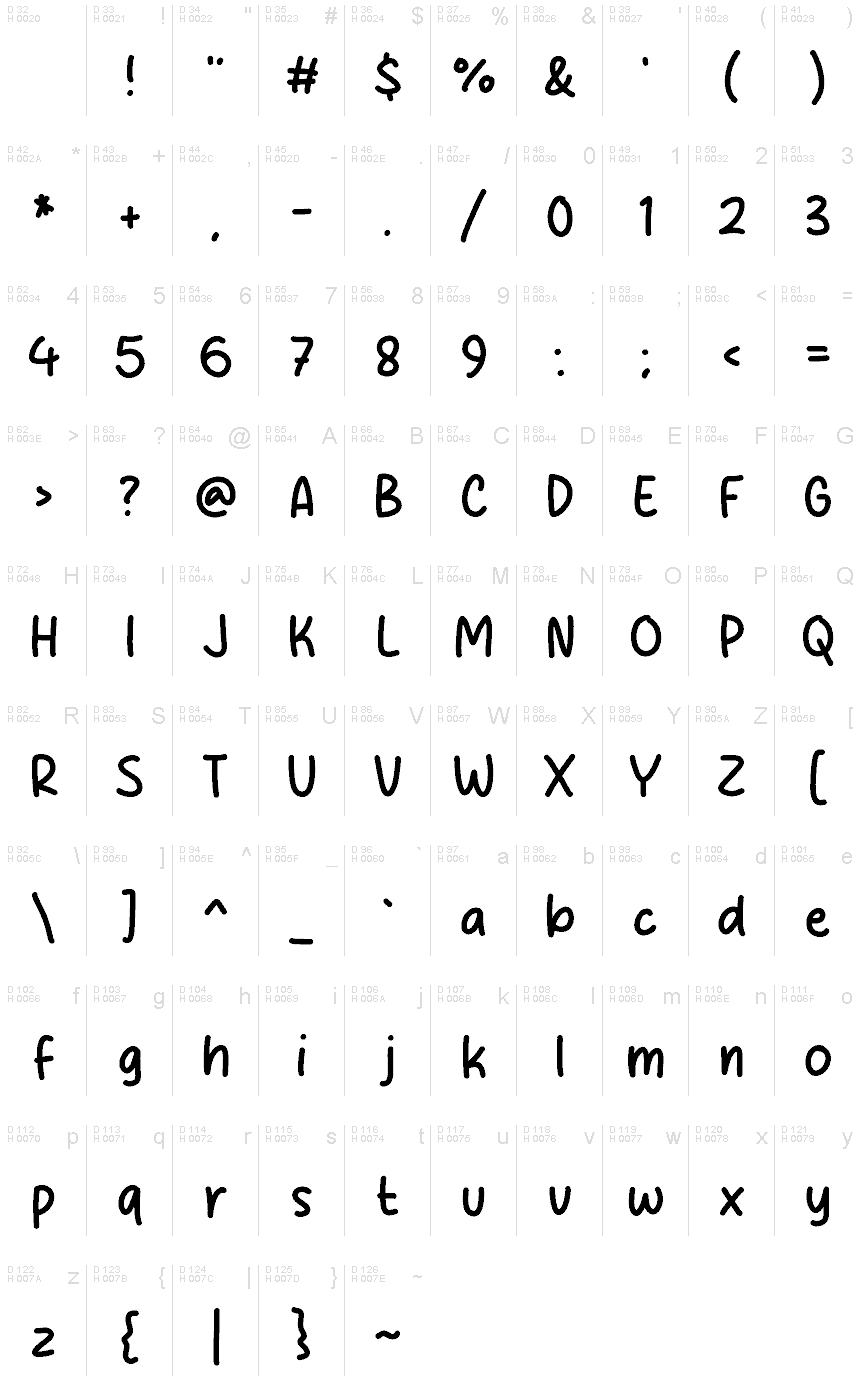
Dialog Note
Dialog Note font is a free handwritten font by MJType, a casual typeface with smooth curves, relaxed flow, and a modern aesthetic. Its letters present a hand-drawn feel, making it perfect for designs relating to youth and lifestyle audiences. While not aiming for total legibility, this display font offers super creative options that are best used in large sizes.
Put Dialog Note to use by producing authentic eye-catching logos, labels, packaging designs for new brands or as headings on websites and apps focusing on youth content. Advertisements (social media ads especially), magazine/newspaper covers or other print materials would also be perfect. Shop signs or boards at entertainment venues matches the tone too!